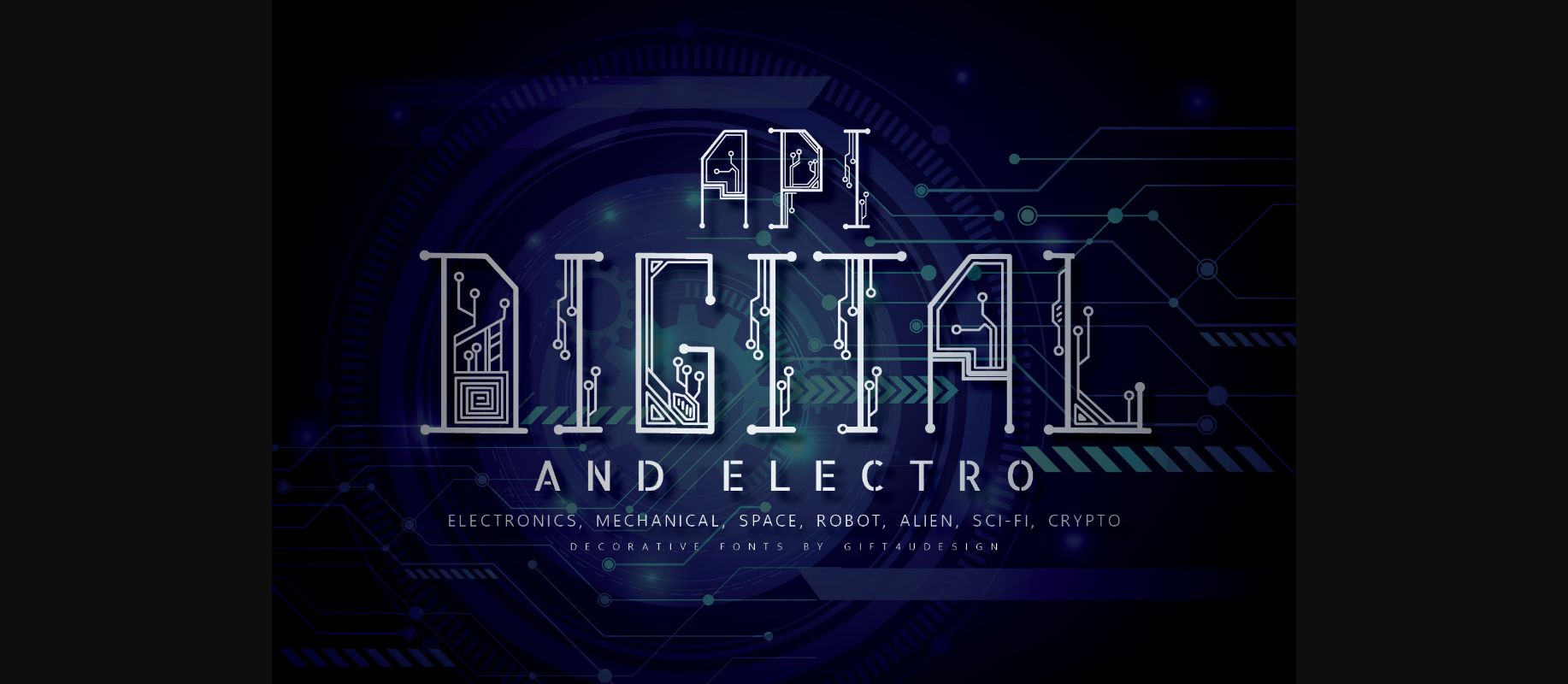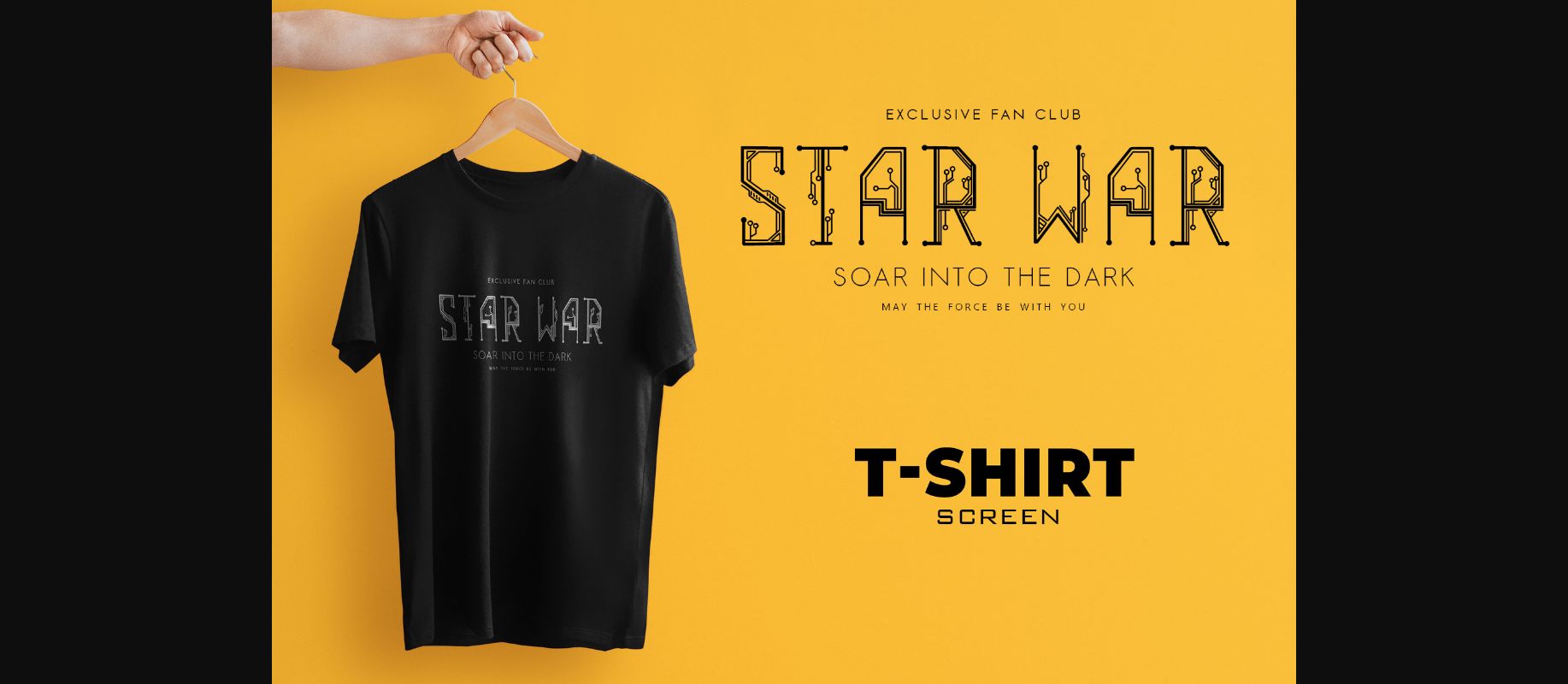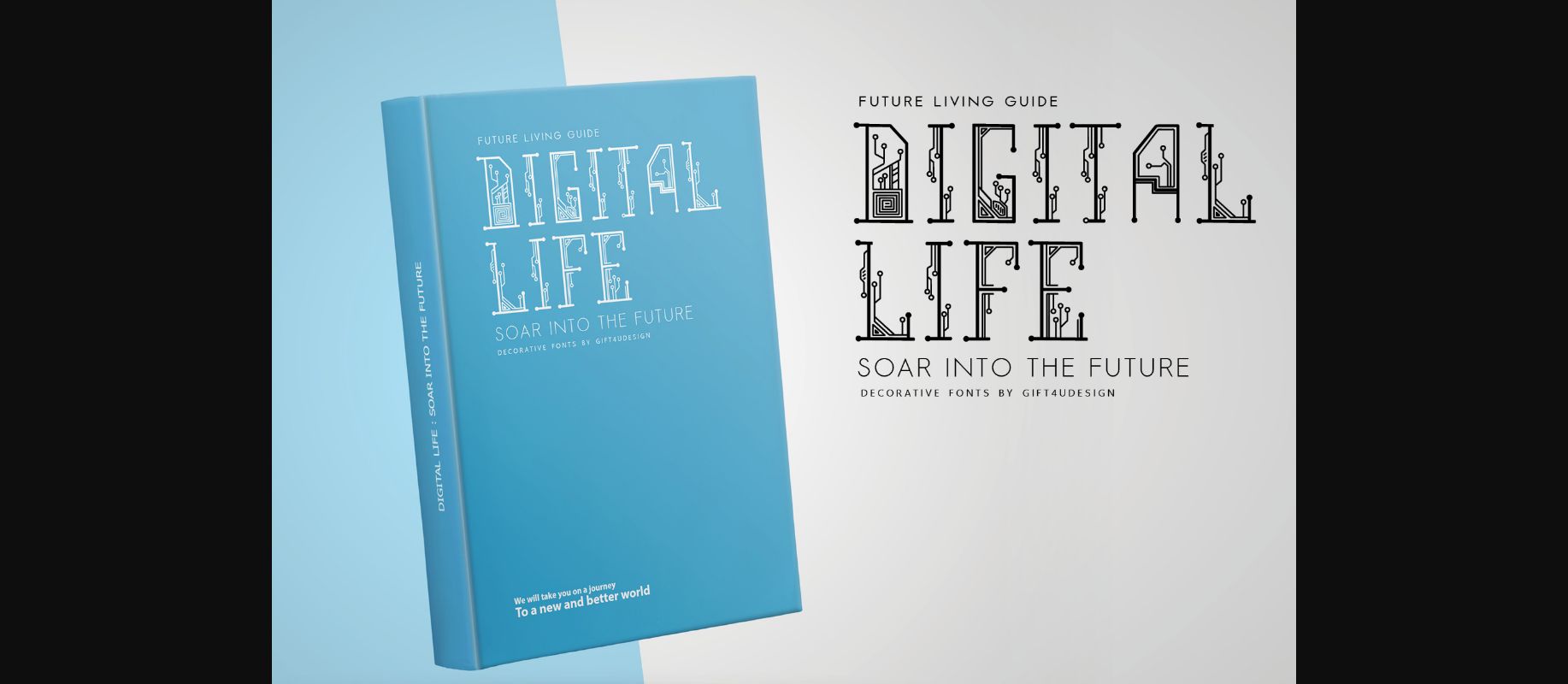
About Api-digital Font
Api-Digital is a decorative font for printed circuit boards. Refers to digital, multimedia, electronics, space, sci-fi, robots, crypto, or anything else that is technological. It can be used in conjunction with other fonts easily.